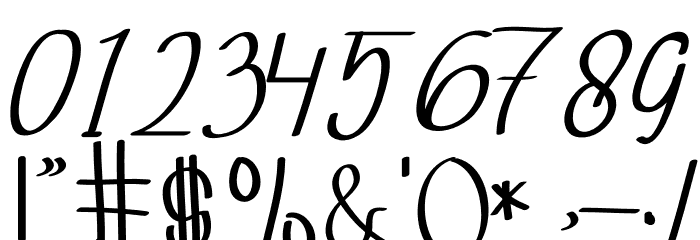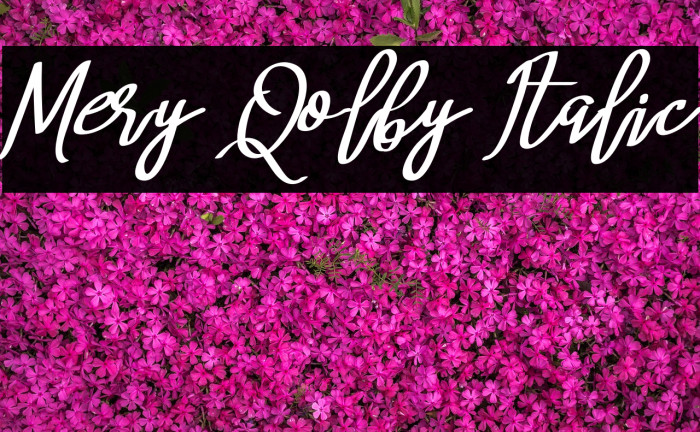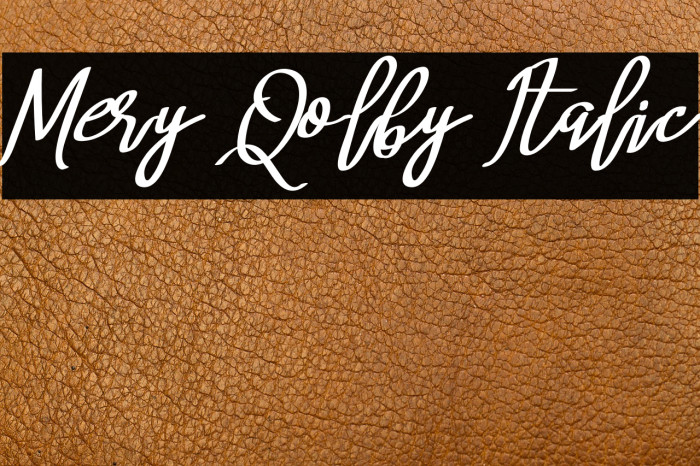
Mery Qolby Italic Font
This font features an elegant and flowing script style, characterized by its smooth, cursive strokes and a natural handwritten appearance. The letters are connected, creating a seamless flow that is both sophisticated and artistic. The uppercase letters are tall and graceful, while the lowercase letters maintain a consistent rhythm and balance. The numerals are stylish and complement the overall script design. Special characters are integrated seamlessly, adding to the font's versatility. This font exudes a sense of elegance and creativity, making it suitable for a variety of design projects.
An elegant, flowing script font with a natural handwritten style.
• Proposed Projects: Ideal for wedding invitations, greeting cards, branding, and elegant logos.
• Category: Script
• Contrast: Medium
• Overall Style: Elegant, Artistic
• Use Case: Logos, Invitations, Decorative text